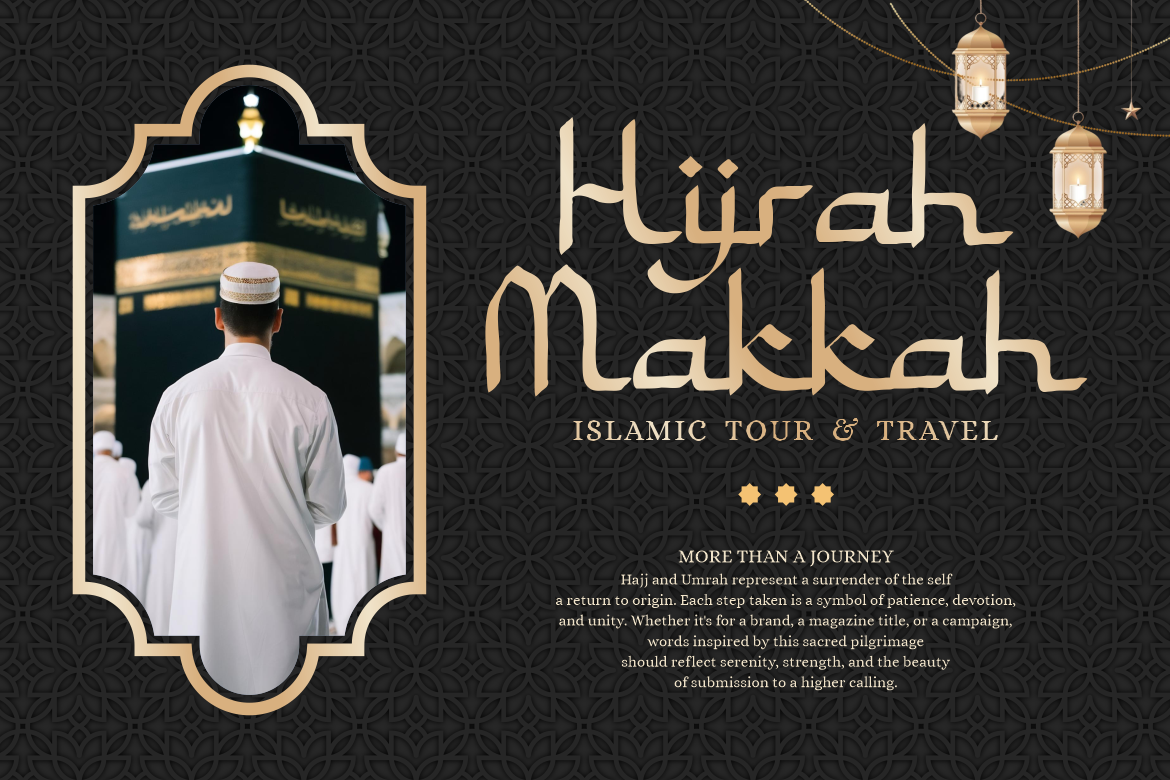
Typography plays a powerful role in shaping how designs feel and how audiences interpret a visual message. Among the many styles available today, Arabic font–inspired typefaces stand out for their elegant curves, geometric cuts, and modern minimalism. While they’re not always used for Arabic language content, these contemporary fonts with Arabic-influenced aesthetics have become a popular design choice for creative projects across branding, digital design, advertising, and product visuals.
This article explores five creative ways to use Arabic font to elevate your work, along with insights into why designers around the world are turning to this unique typographic style. If you’re looking to build distinctive, stylish, and modern visuals, Arabic-inspired fonts from Putracetol.com offer the perfect combination of innovation and elegance.
Designers love these fonts because they combine expressive shapes with a minimalist feel. Their sharp angles, smooth curves, and structured geometry create a modern, progressive look suitable for high-end design projects.
Arabic-influenced typefaces also work well as display fonts. They immediately draw attention, making them ideal for logos, posters, headers, or packaging where visual impact matters.
Many designers pair them with contemporary typefaces like Nadishaq, Minar Block, or Furqan from Putracetol.com to create branding systems that feel stylish, balanced, and unified.
Now, let’s explore the five most effective and creative ways you can use Arabic fonts in modern design.
Modern branding focuses on simplicity, clarity, and emotional appeal. Arabic fonts fit perfectly into these principles, delivering a clean yet expressive identity.
Arabic fonts have a sculptural quality that gives brands a premium edge. When paired with monochrome palettes black, white, silver, or muted neutrals the result is a sophisticated aesthetic that feels both modern and timeless.
A solid example is pairing an Arabic-styled typeface with a minimalist sans serif like Yasira Script from Putracetol.com. This creates a clear hierarchy while keeping the identity sleek and professional.
Logos need to be memorable, unique, and instantly recognizable. Arabic font–inspired lettering offers bold, artistic silhouettes that help logos stand out.
The distinctive cut-out letterforms and geometric flow give logos a creative edge. They communicate originality and confidence qualities that modern brands want to project.
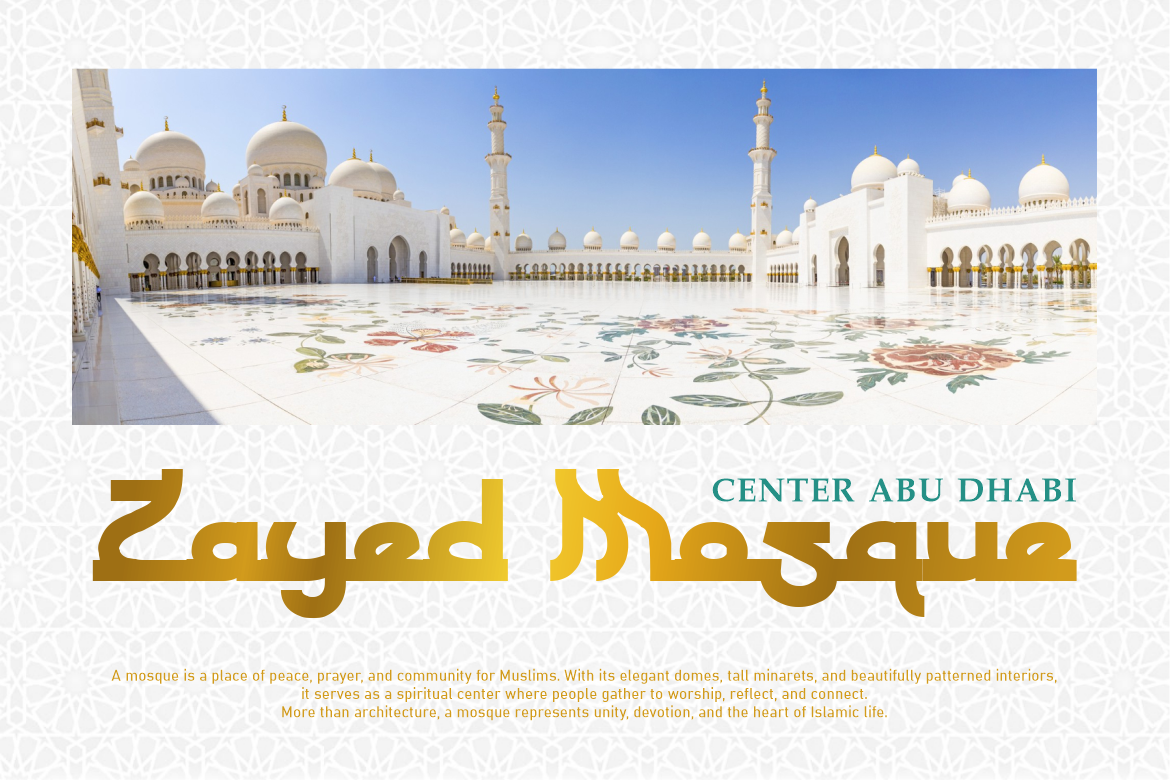
For a more expressive identity, designers often combine Arabic fonts with minimal serif accents such as those from Sacred Mubarak or Nadishaq, available on Putracetol.com. The contrast adds texture while keeping everything cohesive.
Website headers are one of the first visual elements users see. A strong header can set the tone for the entire browsing experience. Arabic fonts bring a futuristic, minimalist aesthetic that instantly grabs attention.
These fonts deliver a sharp, modern feel that complements clean website layouts. Their unique structure contrasts beautifully with white space and minimalist UI design.
Arabic fonts also pair well with lightweight body text fonts, making the header the center of focus without overwhelming the rest of the design.
Using a font like Furqan from Putracetol.com for subheadings and UI labels can create a consistent, polished visual system.
Events especially creative or contemporary ones need visuals that look bold and fresh. Arabic fonts are ideal for posters because of their large, expressive letterforms and artistic shapes.
These fonts add an avant-garde feel to the layout. Their stylized features make posters look curated and intentional, ideal for events that want a modern or experimental vibe.
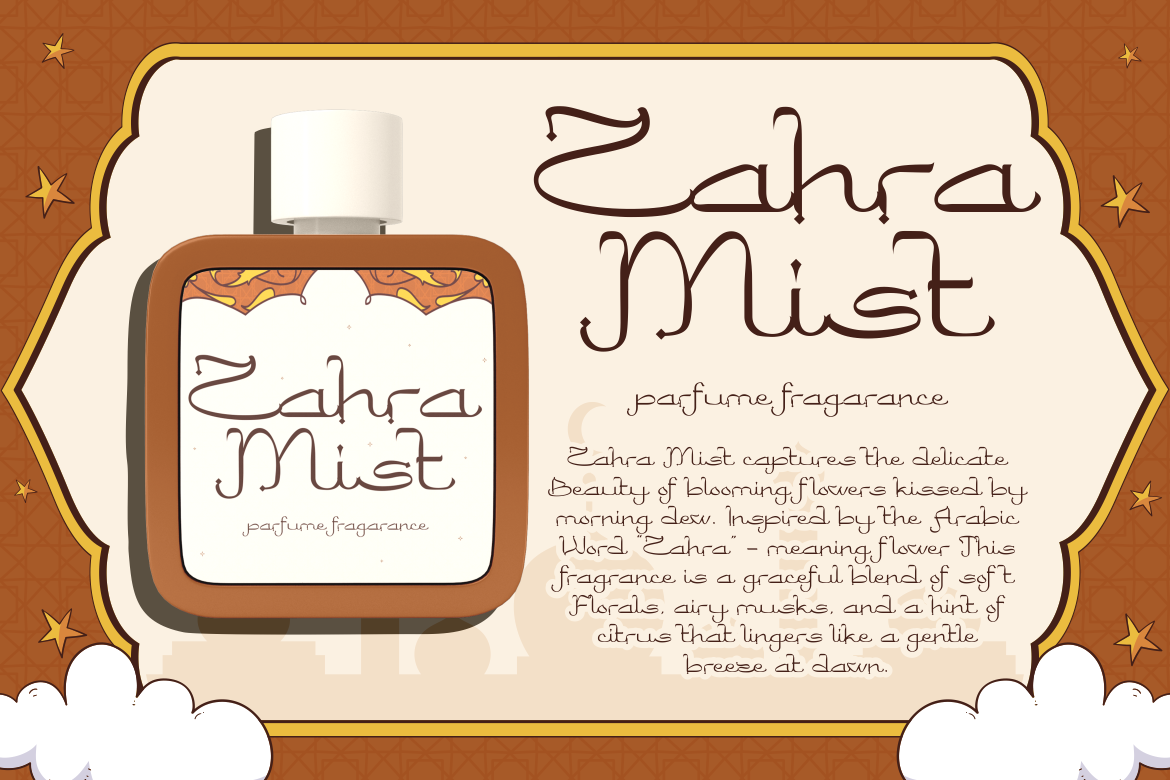
Designers often use Arabic fonts as the primary title typeface, then complement them with supporting fonts like Minar Block or Yasira Script to finalize the layout.
Packaging is one of the strongest touchpoints for brand recognition. Arabic fonts give packages a sleek, high-end look that makes products stand out on shelves or online.
The typography adds sophistication and visual drama. Even simple packaging layouts look elevated when paired with an Arabic-inspired font.
Minimalist design paired with a bold Arabic font creates a strong contrast that draws the eye. Fonts like Nadishaq or Sacred Mubarak can be used for secondary details or product information, creating a balanced and clean composition.
Putracetol.com provides a wide range of Arabic-inspired typefaces that work beautifully for modern branding and design. Here’s why designers love them:
Their distinctive shapes create instant visual identity. You’ll get a look that stands out from generic display fonts.
These fonts blend well with modern design styles, including flat design, minimalism, futurism, and monochrome aesthetics.
Whether you’re designing branding, logos, posters, websites, packaging, or social graphics, Arabic fonts adapt easily.